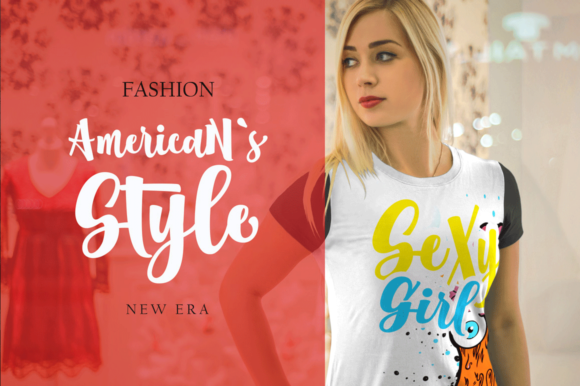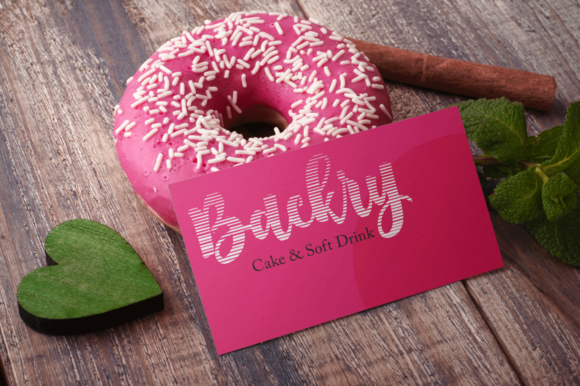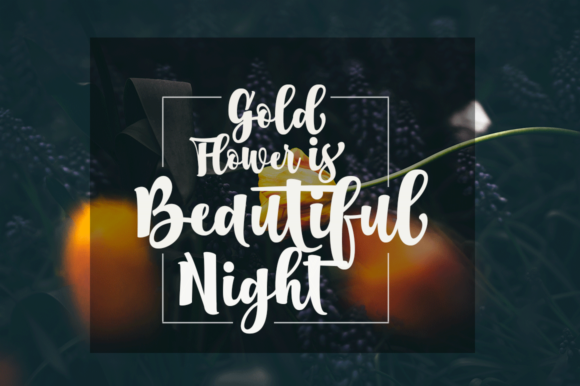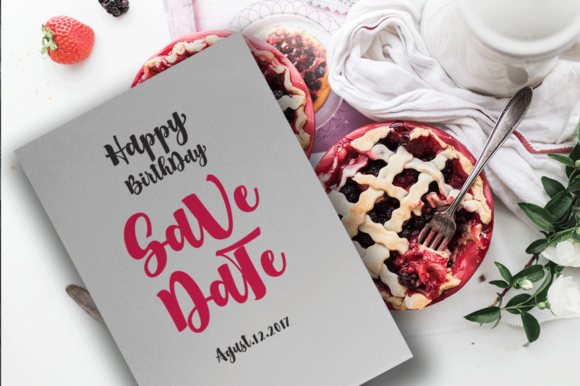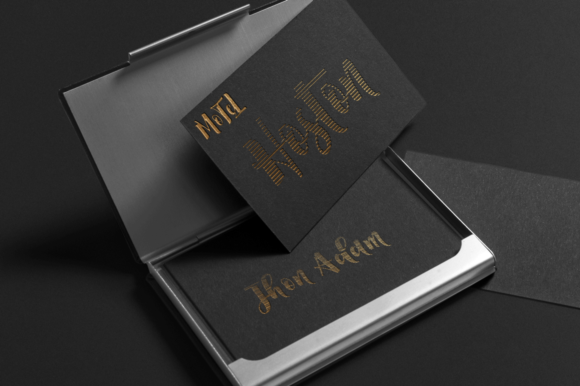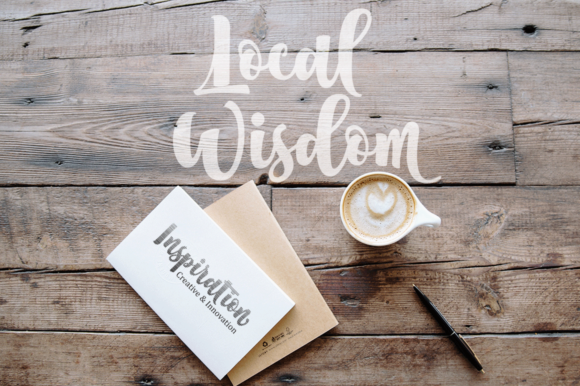
Boston Font
About Boston Font
The Boston is a striking font. This handmade script font has dancing letters and a natural writing style. It’s perfect for any unique design which needs to stand out.